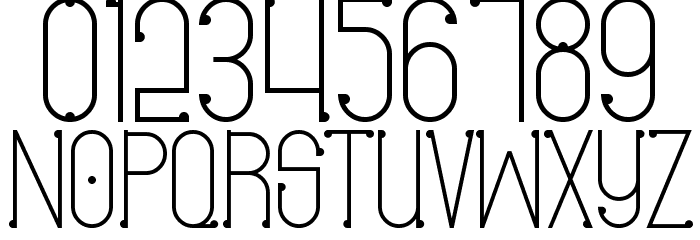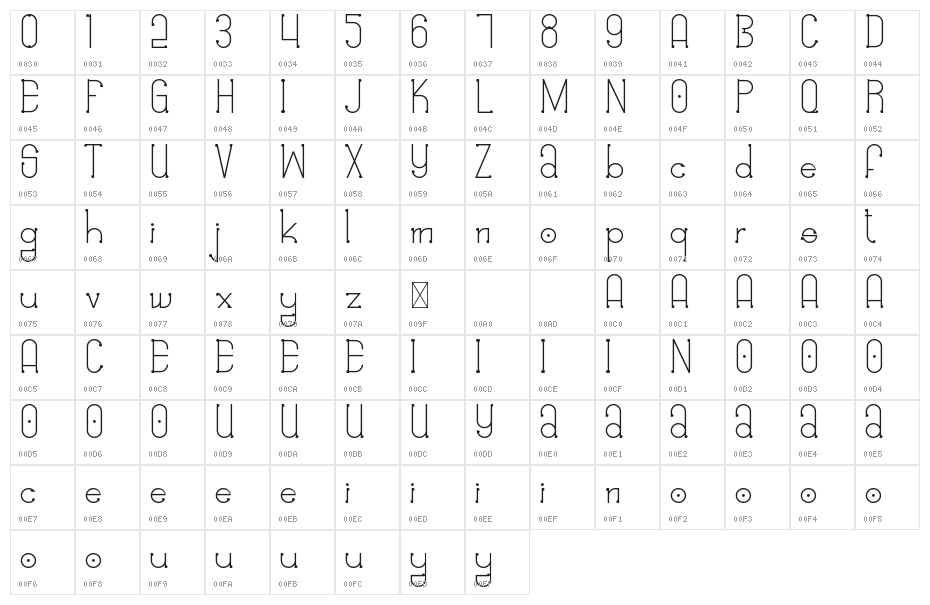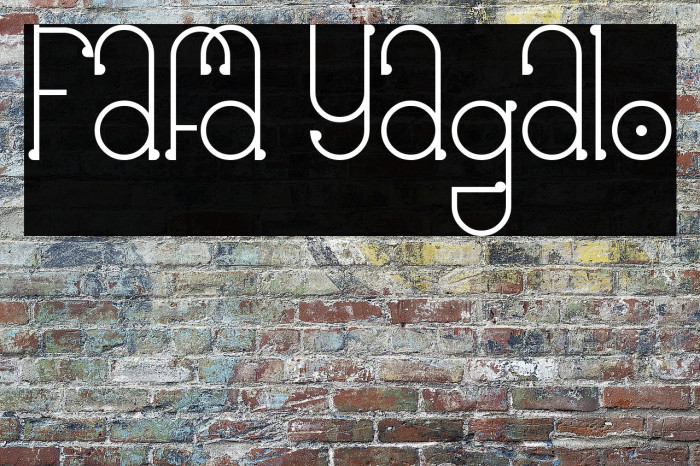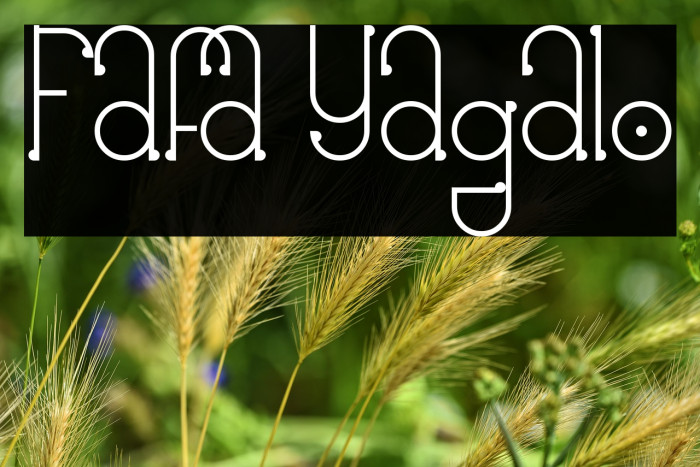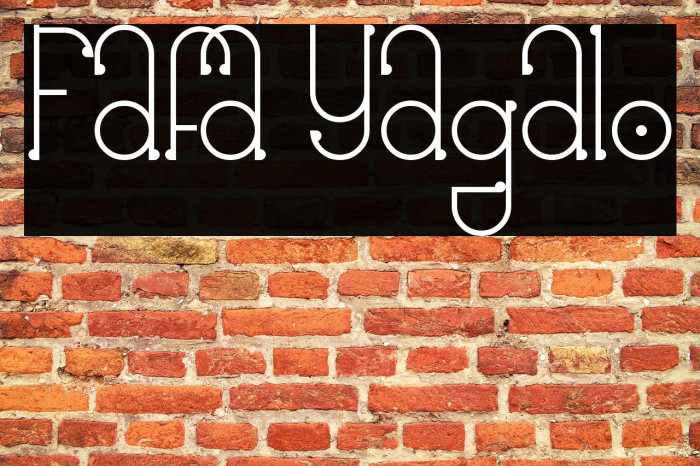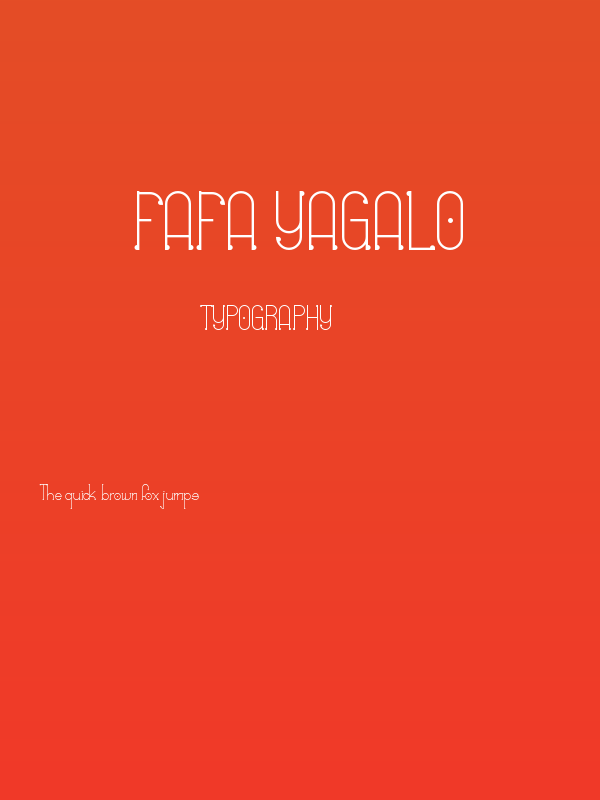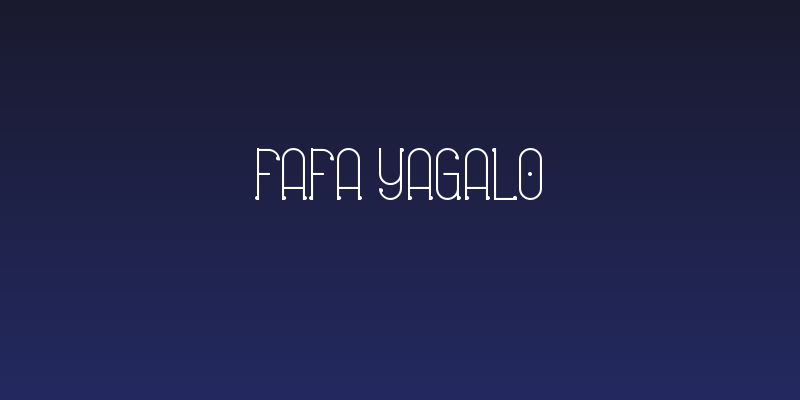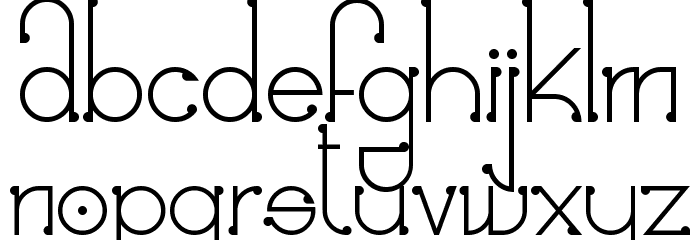
Fafa Yagalo Font
Fafa Yagalo Description
This font features a unique and playful design with a modern twist. The characters are constructed with thin lines and rounded terminals, giving it a distinctive and whimsical appearance. The uppercase letters are tall and narrow, while the lowercase letters maintain a consistent height and style. The numbers are similarly styled, ensuring a cohesive look across all characters. The special characters are creatively integrated, maintaining the overall aesthetic. This font's design is both eye-catching and versatile, suitable for a variety of creative projects.